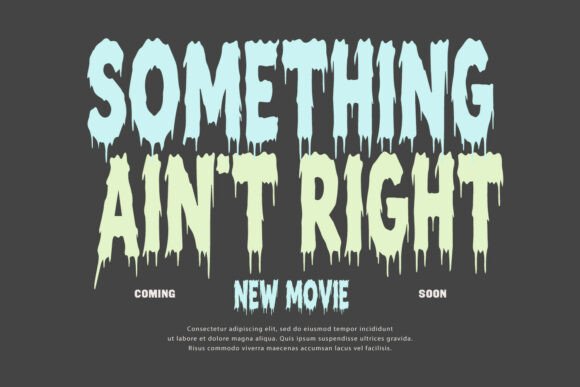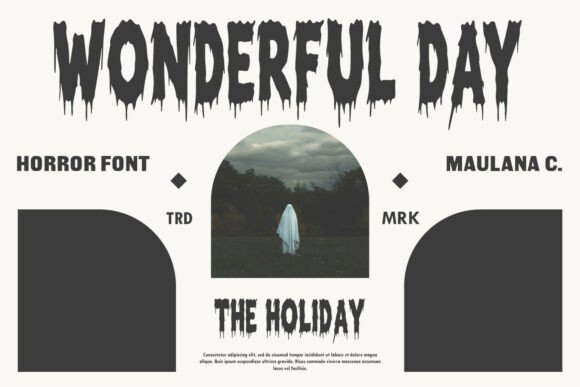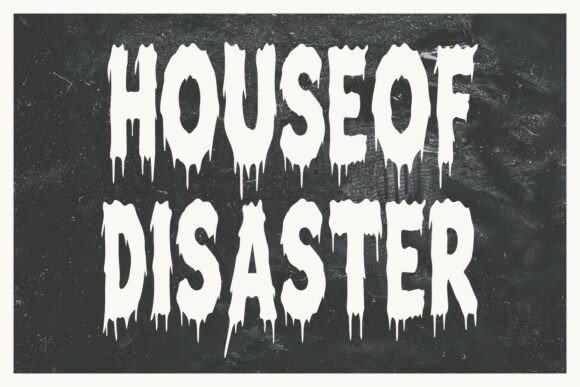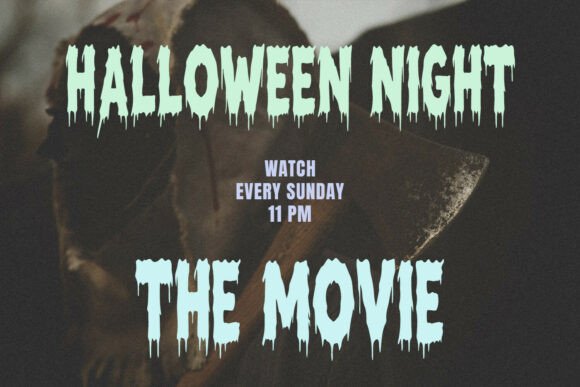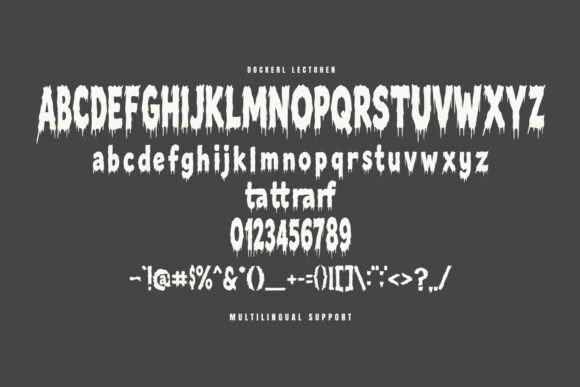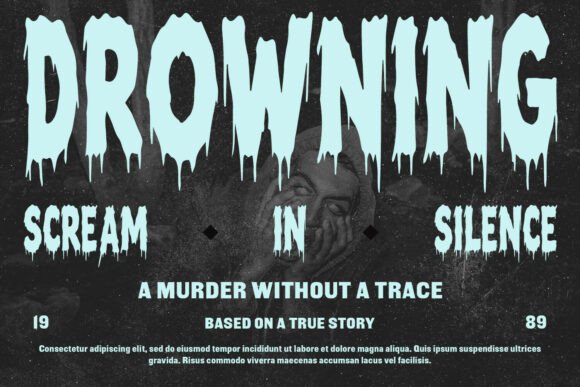
Introduction to Dockerl Lectohen Font
Have you ever stumbled upon an old horror movie or a spooky book that sent shivers down your spine? For designers, those moments of creative inspiration can be just the spark we need to bring our projects to life. For those who crave a touch of darkness and mystery in their work, we’re excited to introduce the Dockerl Lectohen Font – a spine-tingling display font that’s sure to transport you to a world of eerie delight.
With its tall, condensed letterforms and dramatic melting effects, the Dockerl Lectohen Font is the perfect design resource for adding a macabre twist to your creative projects. Whether you’re working on a Halloween party invitation, a horror movie poster, or a spooky book cover, this font is sure to bring an air of supernatural mystery to your work. And the best part? It’s available for free download, making it an essential addition to any designer’s toolkit.
Key Features of Dockerl Lectohen Font
- Unique characteristics include a modern, elegant aesthetic and a wide range of font styles, making it suitable for various design applications.
Honest Review: Dockerl Lectohen Font
As a designer, I’m always on the lookout for high-quality design resources to elevate my creative projects. The Dockerl Lectohen Font caught my eye, and I was excited to give it a try.
- ✨ Unique and elegant design that adds a touch of sophistication to any project
However, I did encounter a few limitations with the Dockerl Lectohen Font.
- ⚠️ Limited font styles and variations, which may not be suitable for projects that require a lot of customization
- ⚠️ Some users may find the font to be too ornate or distracting, depending on the design context
Overall, I think the Dockerl Lectohen Font is a solid choice for designers who are looking for a high-quality, elegant font to add some sophistication to their projects. While it may have some limitations, it’s definitely worth considering for your next creative project.
Dockerl Lectohen Font
The Dockerl Lectohen Font is perfect for designers working on creative projects that require a unique design resource. It’s ideal for use in logos, branding materials, and marketing materials. The font’s high quality and transparent background feature make it a great choice for designers who want to create visually appealing graphics.